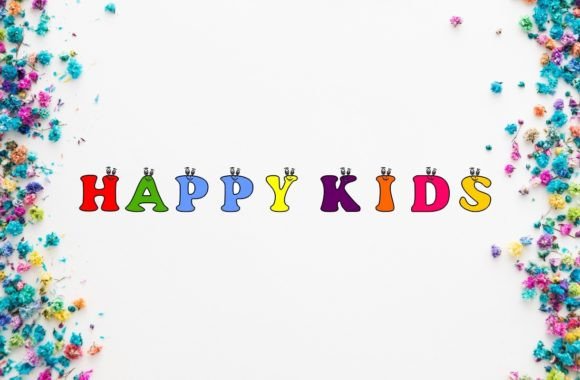
Immerse yourself in a whimsical world of creativity with HappyKids, a decorative display font that exudes charm and playfulness. This enchanting font, crafted by the skilled hands of innovationworld4.0, is a true masterpiece that will add a touch of magic to your designs.
Journey into the realm of limitless possibilities with HappyKids, where imagination takes center stage. Its whimsical characters will bring a smile to your face and captivate the hearts of all who behold them. Whether you're a seasoned designer or just starting your creative journey, HappyKids is the perfect companion to unleash your inner artist.
With its playful and carefree spirit, HappyKids is the ideal choice for a wide range of design projects. Create eye-catching posters that transport viewers to a world of wonder, design invitations that spark joy and excitement, or add a touch of whimsy to your social media posts. The possibilities are endless with HappyKids as your creative partner.